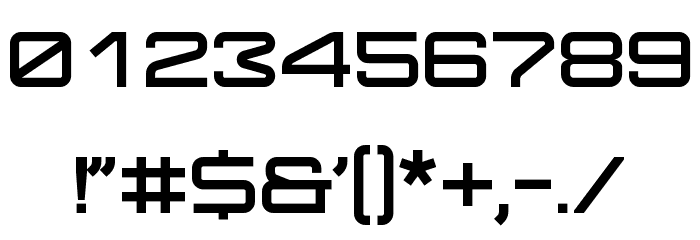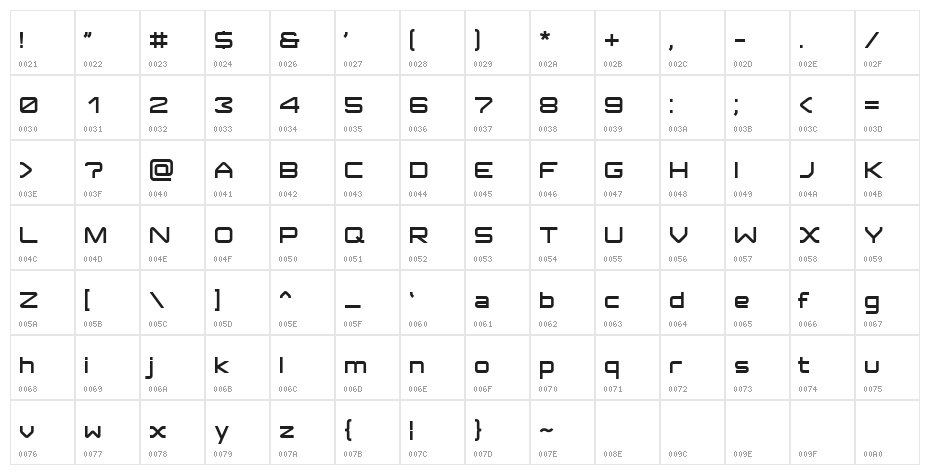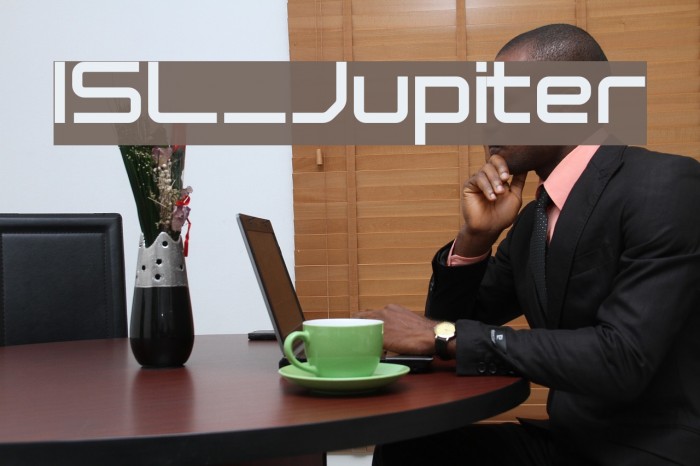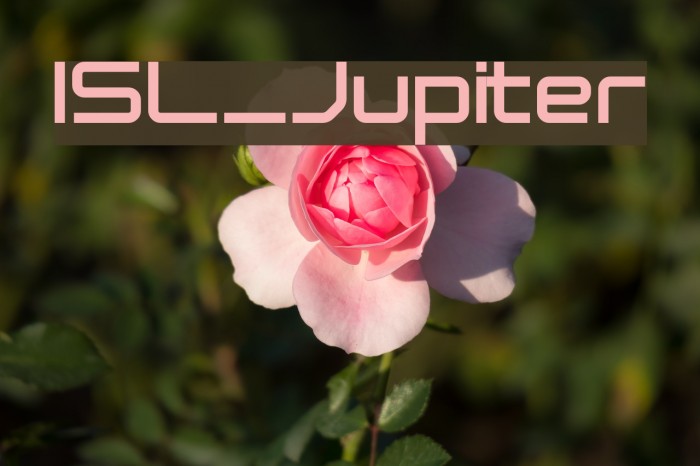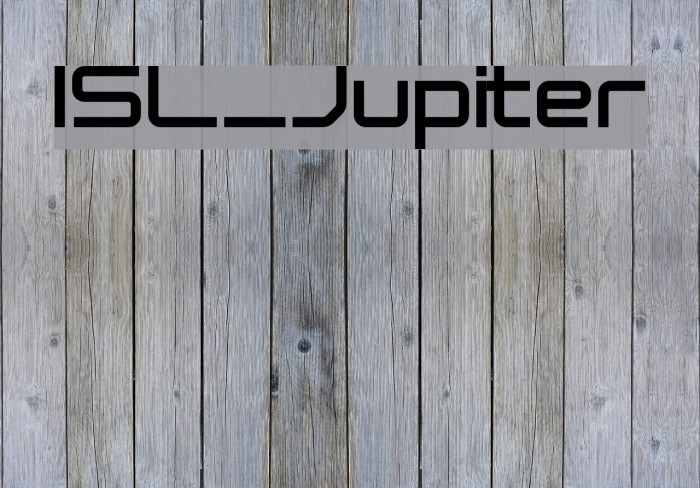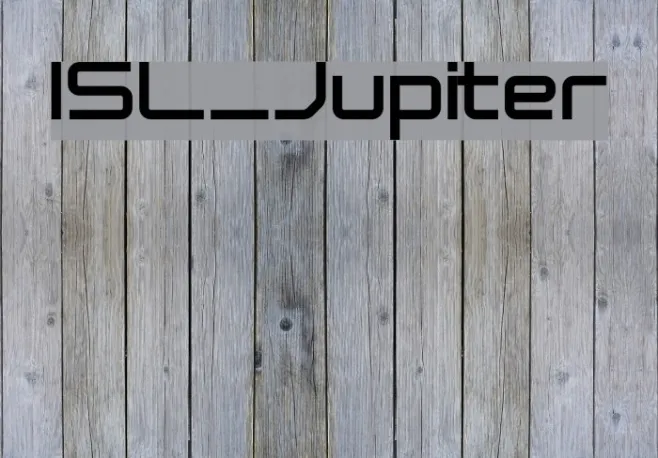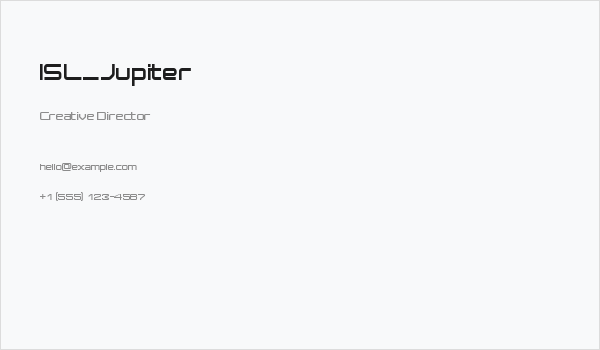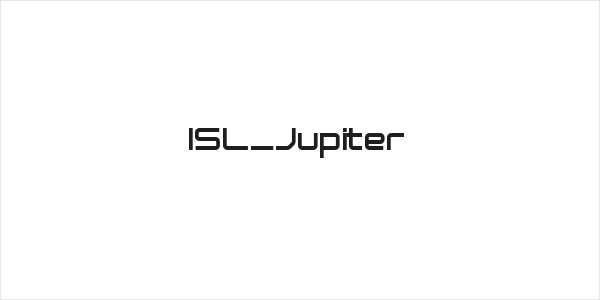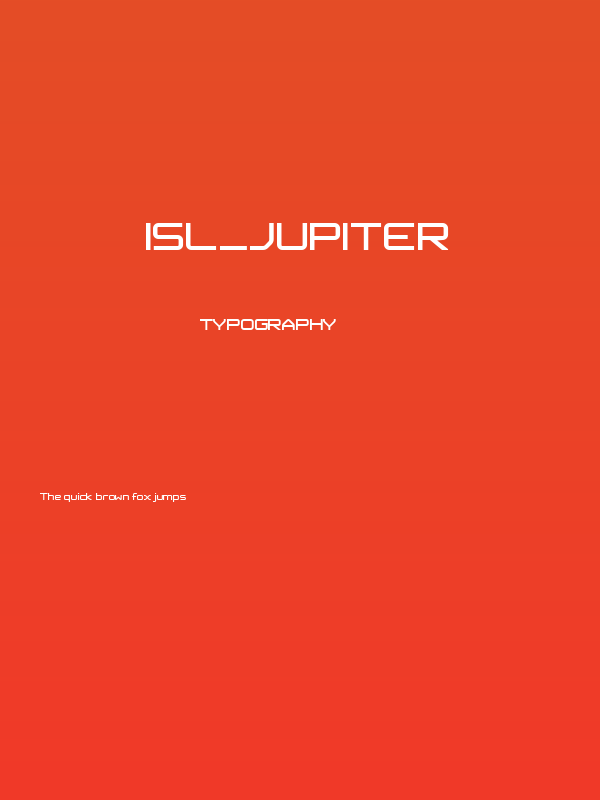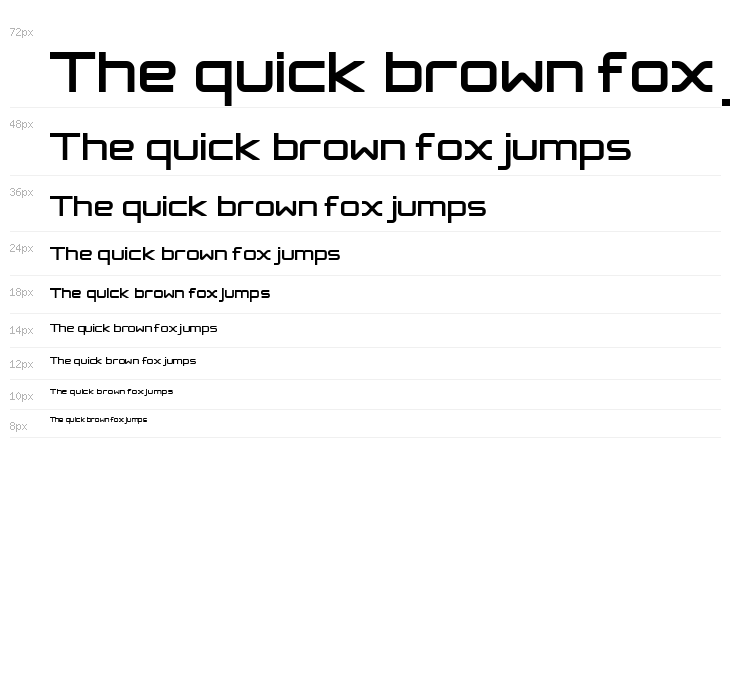
ISL_Jupiter Font
ISL_Jupiter Description
This font features a modern and geometric design, characterized by clean lines and a structured appearance. The uppercase letters are bold and angular, with a futuristic feel. The lowercase letters maintain the geometric theme, offering a consistent look across both cases. Numbers are clear and easily readable, while the special characters are designed to match the overall aesthetic. The font's uniformity and precision make it suitable for a variety of design applications.
| Proposed Projects | Ideal for technology branding, modern website headers, and futuristic design projects. |